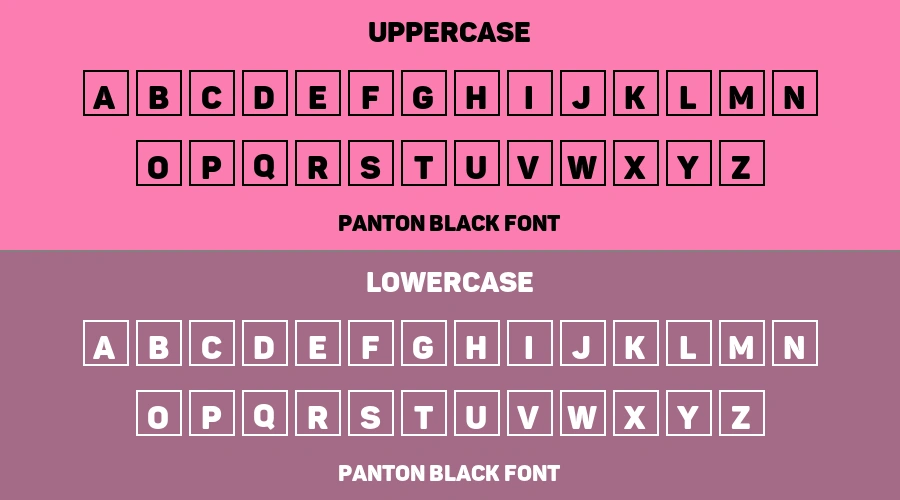
About Panton Black Font
Panton Black Font stands out for its distinctive combination of balanced weights and refinement. Ideal for corporate reports, it provides the versatility and cultural significance that professional projects demand. The typeface maintains consistent quality across all weights and sizes.
Key features include refined modular forms and practical stylistic sets, enhancing typographic expression. In certification marks applications, Panton Black Font demonstrates exceptional microfilm readability. The stroke contrast and user perception contribute to its distinctive character and professional appeal.